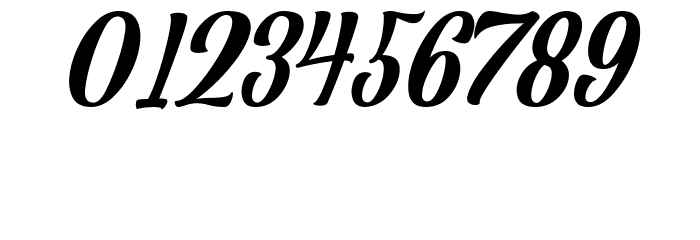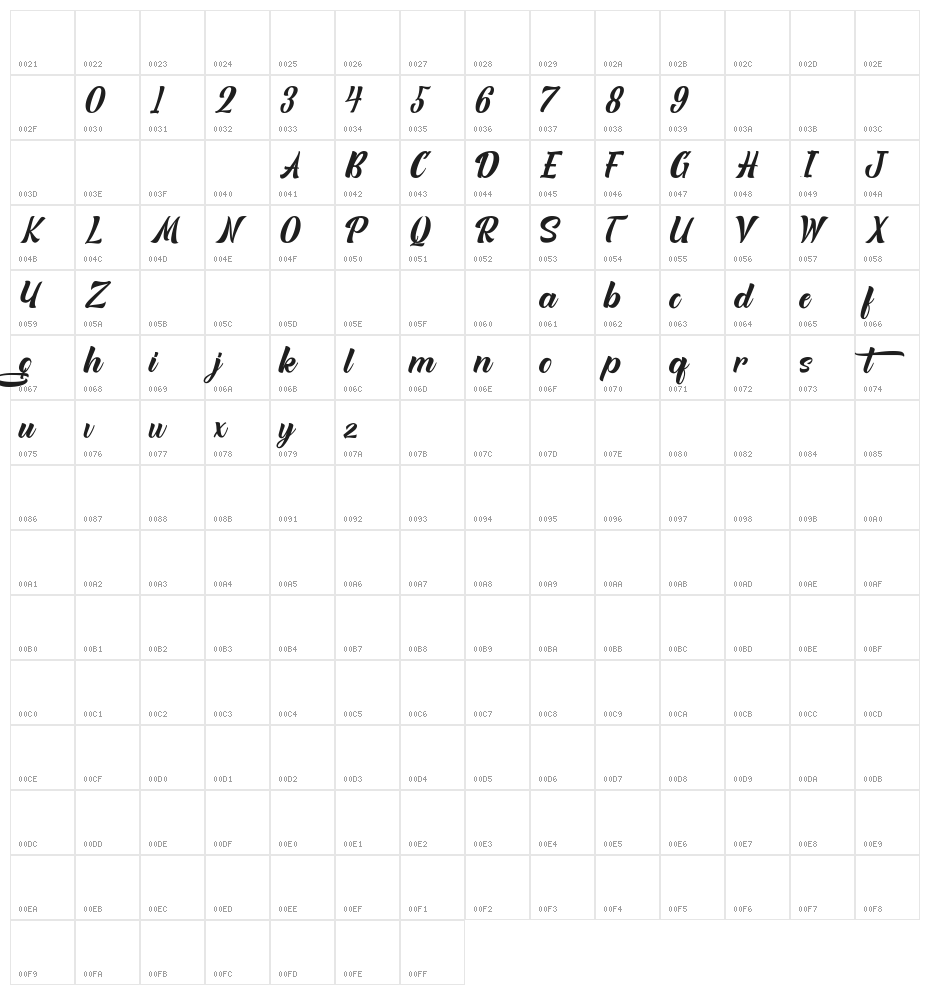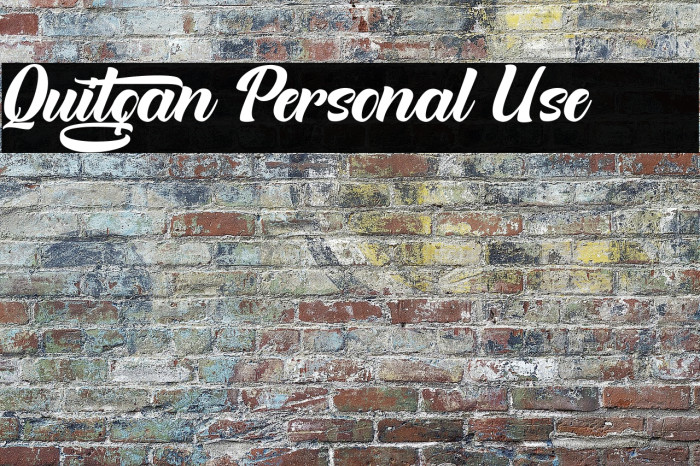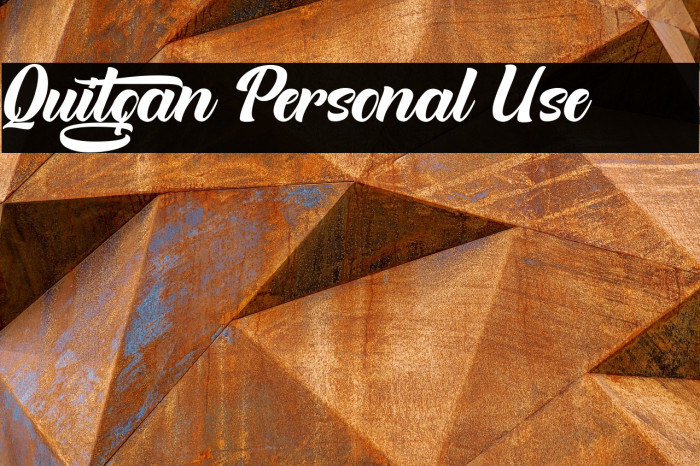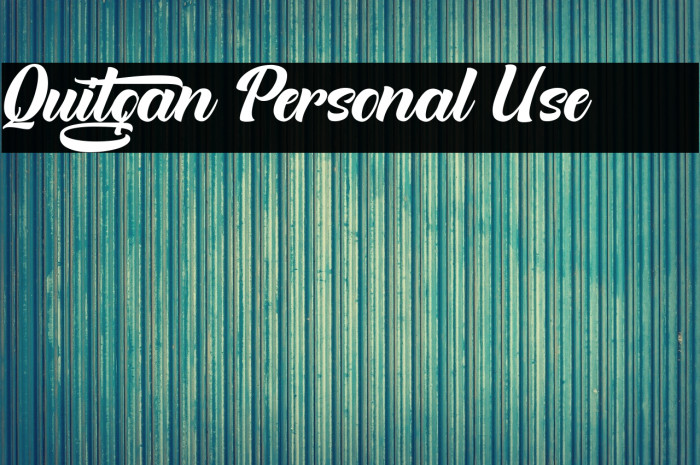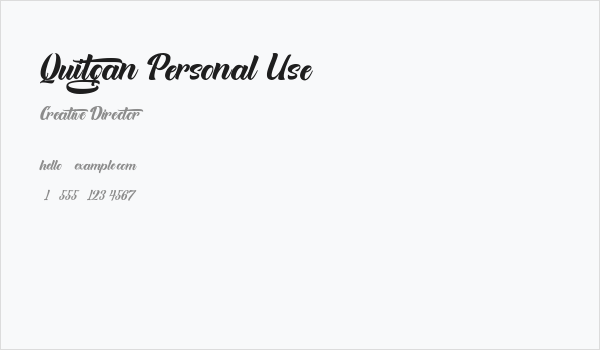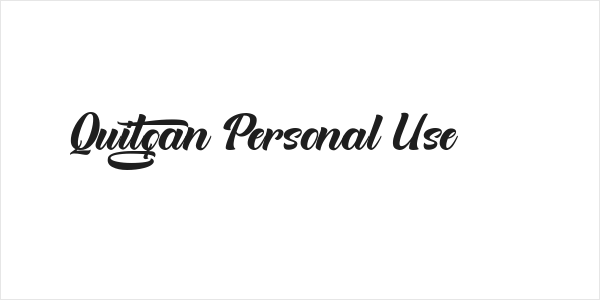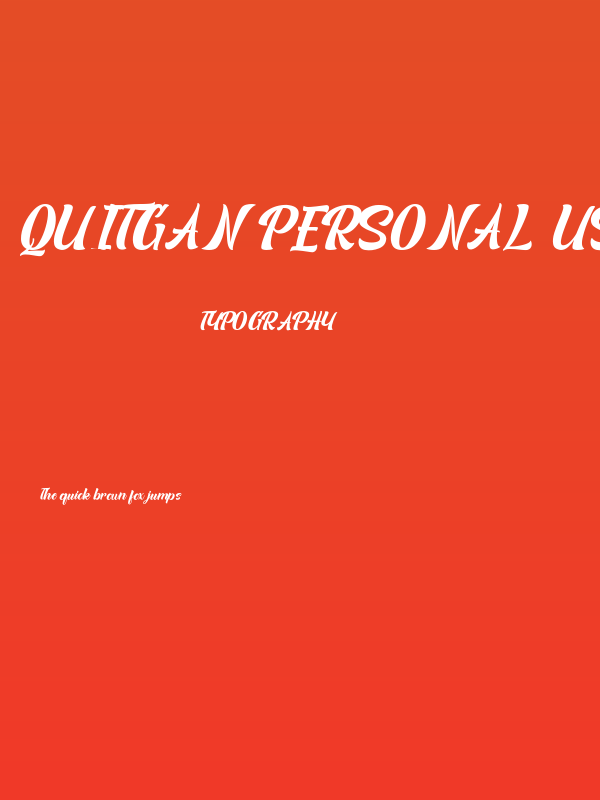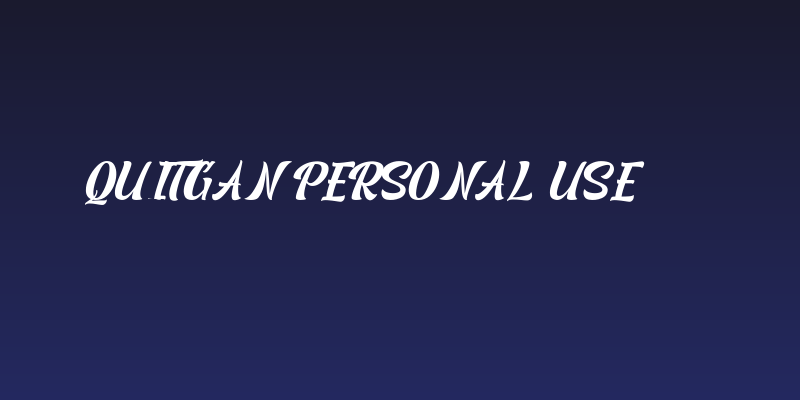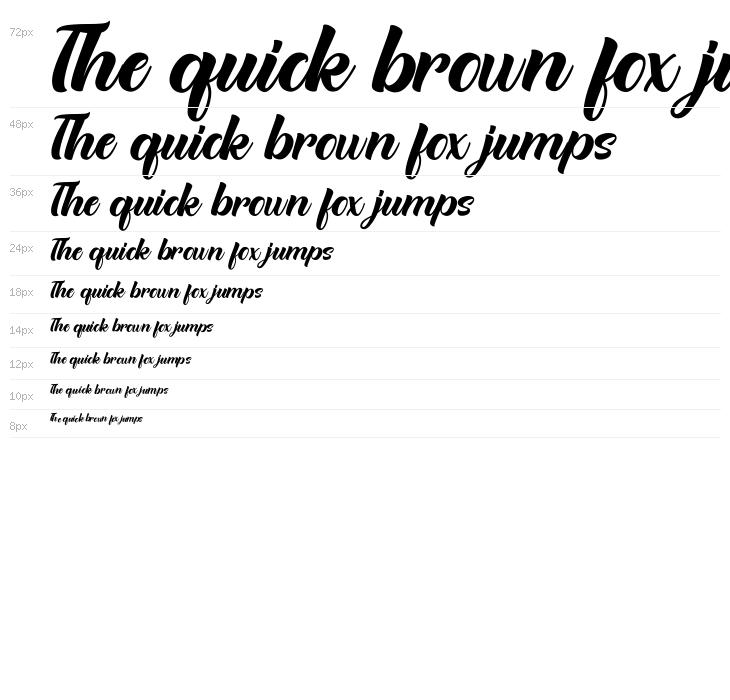
Quitgan Personal Use !!! Font
Quitgan Personal Use !!! Description
This font features a bold and flowing script style, characterized by its elegant and dynamic curves. The uppercase letters are particularly striking, with sweeping lines and a sense of movement that adds a touch of sophistication. The lowercase letters maintain this fluidity, with some characters featuring unique flourishes that enhance the overall aesthetic. The numerals are consistent with the script style, offering a cohesive look across all characters. This font is designed to capture attention and convey a sense of elegance and creativity.
| Proposed Projects | Ideal for wedding invitations, branding projects, logo design, and elegant packaging. |